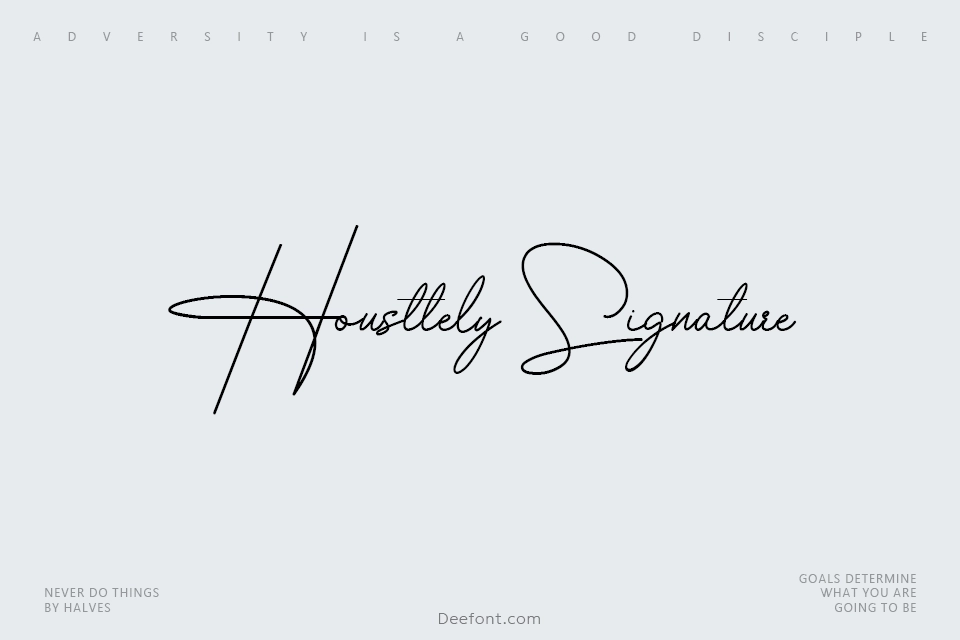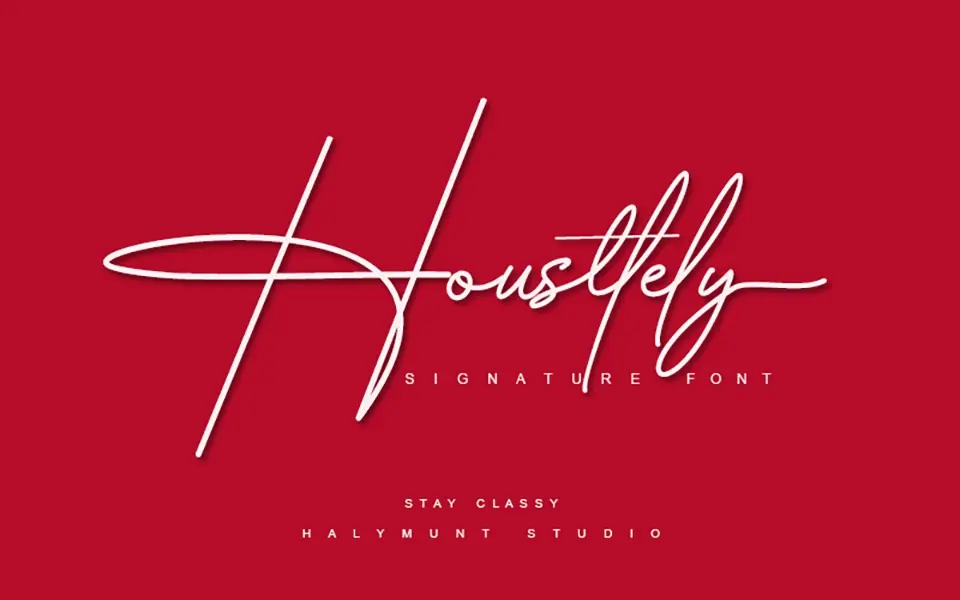
Housttely Signature Font
Housttely Signature is a beautiful monoline signature script font that combines natural writing style with modern elegance. This thin and authentic handwritten typeface is perfect for branding projects, logos, wedding designs, social media posts, advertisements, and product packaging. With its classy touch and unique vibe, it transforms text into sophisticated typography suitable for invitations, stationery, and any creative project requiring a handwritten aesthetic. The font features multilingual support with proper accents and ligatures.